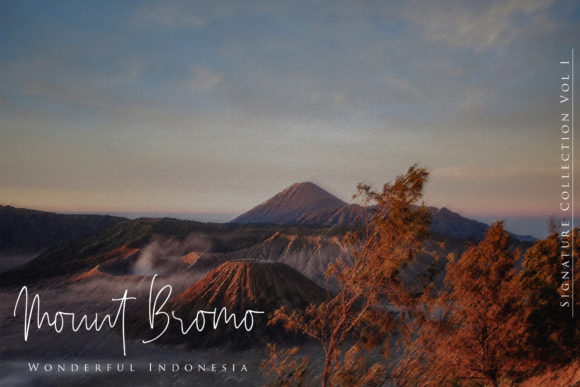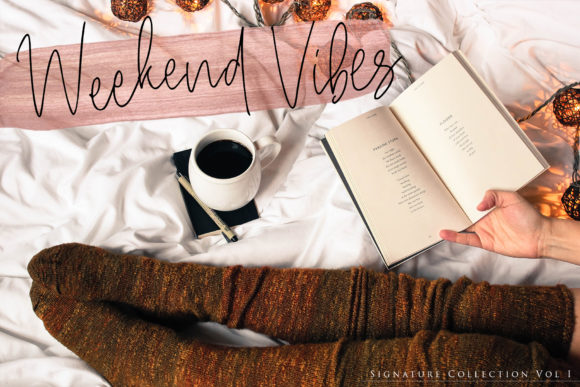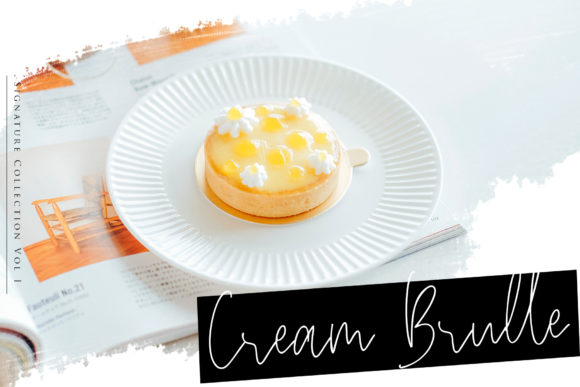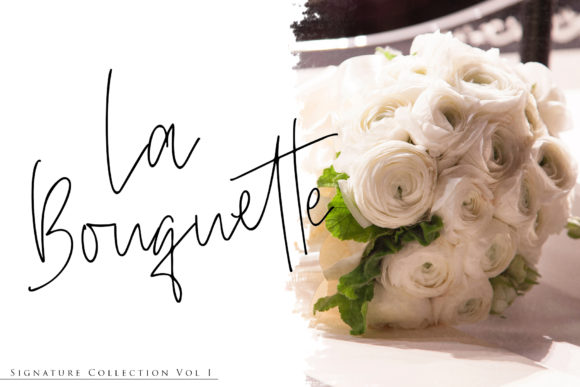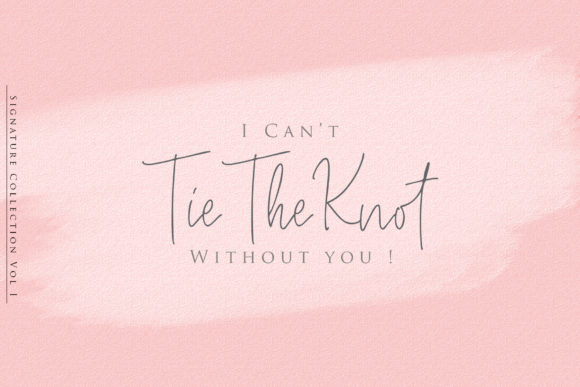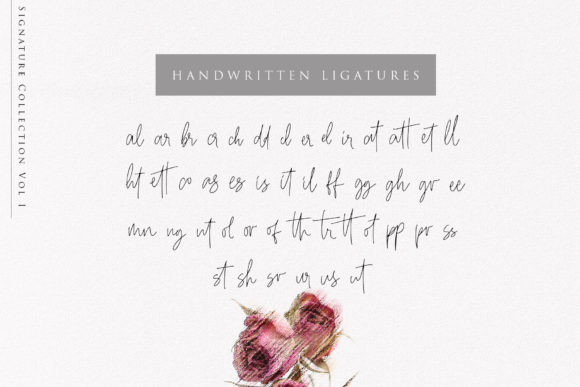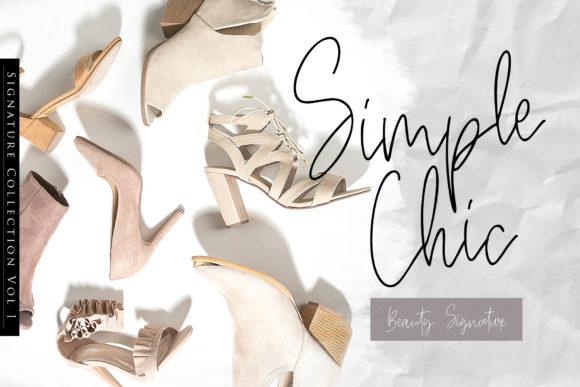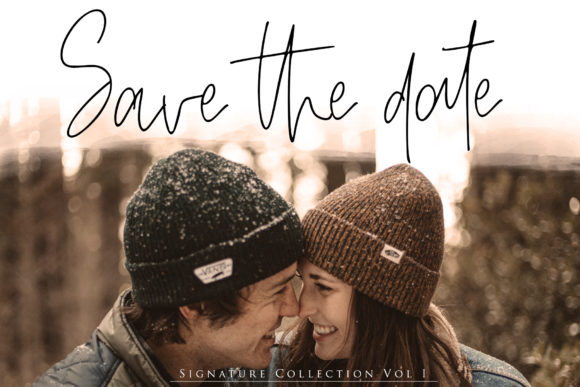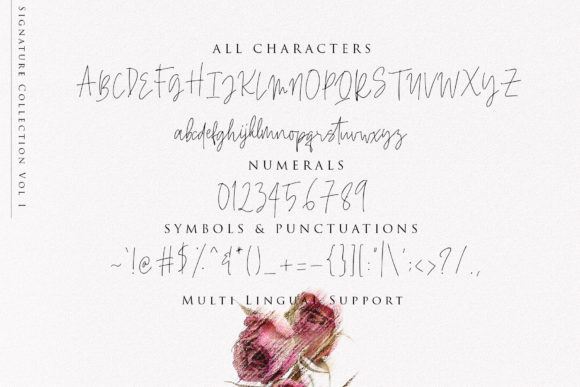
HomeScript FontsBeauty Signature Font Script Fonts Beauty Signature Font FacebookXPinterestWhatsApp Beauty Signature Font Poster 2 Beauty Signature Font Poster 3 Beauty Signature Font Poster 4 Beauty Signature Font Poster 5 Beauty Signature Font Poster 6 Beauty Signature Font Poster 7 Beauty Signature Font Poster 8 Beauty Signature Font Poster 9 Beauty Signature Font Poster 10 About Beauty Signature Font Beauty Signature is a fancy handwritten script font featuring thin curves. Great for a variety of projects! DOWNLOAD NOW People also explored Posteraphy Font Supra Demiserif Font Cate Font Dorrotthy Script Font Gourmet Font Armani Font Chateau Sucre Font Cutelove Font Riverside Stone | Beer Mockup 317 0 TagsBeauty Signature Font Previous articleCharline FontNext articleGraciast Font LEAVE A REPLY Cancel reply Comment: Please enter your comment! Name:* Please enter your name here Email:* You have entered an incorrect email address! Please enter your email address here Website: Save my name, email, and website in this browser for the next time I comment. Personal Use Free Bukan Personal Use Free Read more about this font Masker Area Personal Use Free Read more about this font Avagan Personal Use Free Read more about this font Super Bubbly Font Personal Use Free Read more about this font BLOG Free Fonts Risk: Why Free Fonts Can Be Dangerous for Designers Free Fonts Risk: Why Free Fonts Can Be Dangerous for Designers Using free fonts is a common practice in web and graphic design. However, the... How to Cut Any Font on Cricut: Convert a Font to SVG (Free) To increase your work productivity, choose the most readable fonts. Using Fonts in Digital Marketing: Tips to Strengthen Your Brand Identity